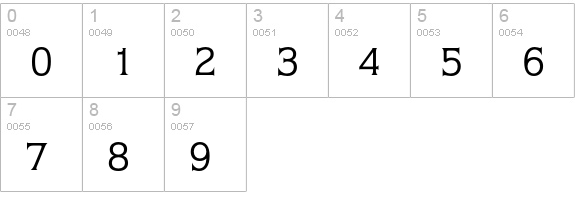
QuorumEF-Book is a comfortable, highly readable variant in the QuorumEF typeface family \xE2\x80\x94 well suited to long-form body text, articles, and editorial content.
QuorumEF-Book font is a stunning typeface that effortlessly combines elegance and readability. With its sleek and modern design, this font is perfect for a wide range of projects, from fashion magazines to corporate branding. The clean lines and balanced proportions of QuorumEF-Book create a sense of sophistication and professionalism. What makes QuorumEF-Book font even more remarkable is that it is available for free. Yes, you read that right – this high-quality font can be freely downloaded and used for both personal and commercial projects. Now, you don't have to compromise on quality or break the bank to get a top-notch font for your designs. Thanks to FontsMarket.com, you can easily access and download QuorumEF-Book font without any hassles. This user-friendly website offers a vast collection of fonts, and QuorumEF-Book is just one of the gems you'll find there. Simply visit FontsMarket.com, search for QuorumEF-Book, and with a few clicks, you'll have this exceptional font ready to use in your projects. Whether you're a professional designer, a student, or an enthusiast looking to elevate your creative endeavors, QuorumEF-Book font is a must-have. Its versatility, elegance, and the fact that it is freely available make it an invaluable addition to your font library. So don't miss out on the opportunity to enhance your designs with this exceptional typeface – head over to FontsMarket.com and download QuorumEF-Book font today!